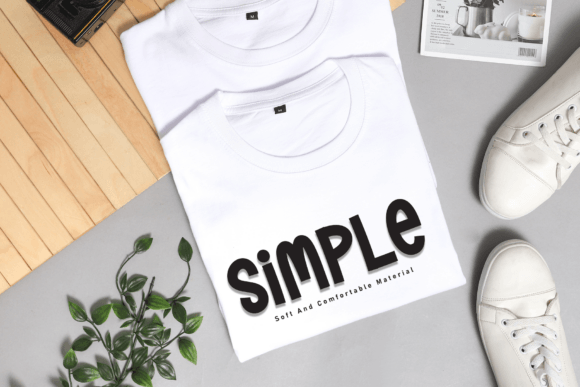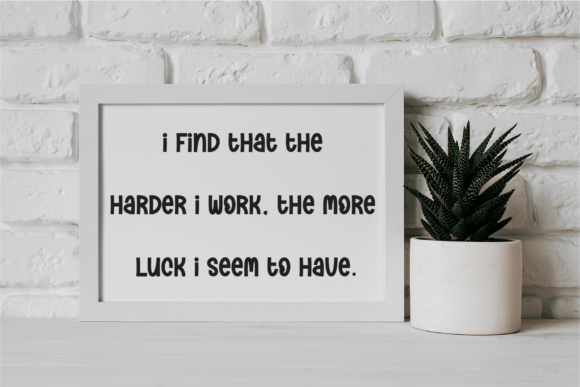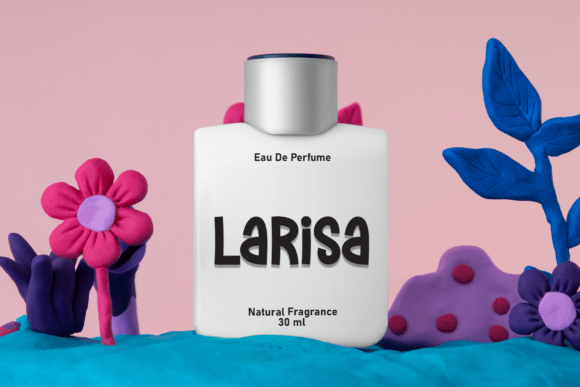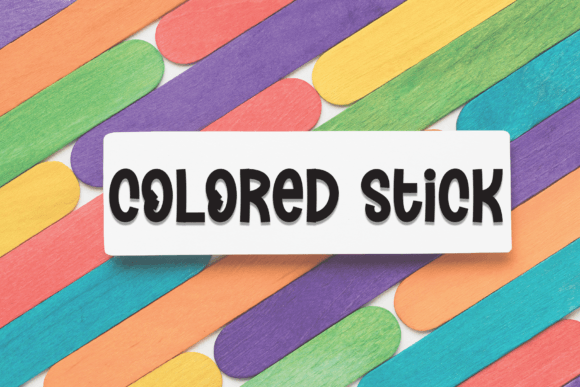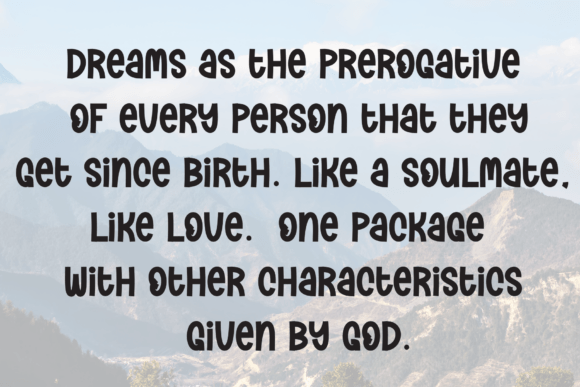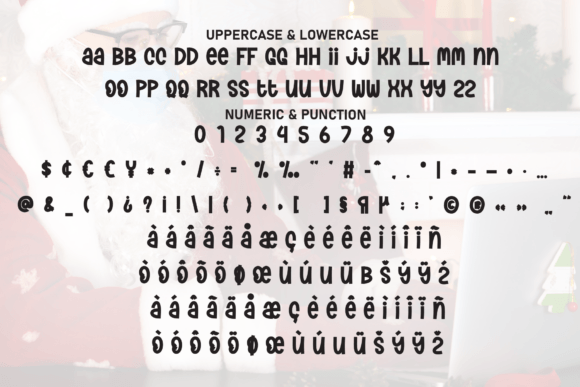
Introduction to Santa Designer Font
As a designer, you know the magic of finding the perfect font to elevate a creative project. It’s that moment when you stumble upon a font that captures the essence of your vision, and everything falls into place. For many of us, that moment comes during the holiday season, when we’re searching for a font that embodies the warmth and cheer of the time of year. And that’s exactly where the Santa Designer Font comes in – a delightful, handwritten display font that’s sure to add a personal touch to your holiday designs.
With its charming letters and festive style, the Santa Designer Font is a design resource that’s hard to resist. Whether you’re creating holiday cards, decorations, or any other seasonal project, this font is sure to bring a high quality, playful feel to your work. And the best part? It’s available for a free download, making it a valuable addition to any designer’s toolkit.
So why is the Santa Designer Font so valuable for designers? For one, its transparent background makes it easy to layer and manipulate in your designs. But beyond that, it’s the font’s ability to evoke a sense of warmth and personality that sets it apart. With the Santa Designer Font, you can add a touch of holiday cheer to any project, making it a must-have for designers looking to create high-quality, festive designs.
Key Features of Santa Designer Font
• High-quality design resource ideal for creative projects, including holiday-themed graphics and designs.
• Features a transparent background, making it easy to layer over different images and backgrounds in creative projects.
• High-resolution design (up to 2048×2048 pixels) for crisp and clear display on various devices and screens.
• Unique, festive design elements, including ornaments, holly, and other holiday-themed graphics, making it a valuable addition to any design resource library.
Honest Review: Santa Designer Font
As a designer, I’m always on the lookout for high-quality design resources that can elevate my creative projects. Recently, I stumbled upon the Santa Designer Font, and I’m excited to share my honest review with you.
What works well: ✨ The font has a unique, playful feel that’s perfect for holiday-themed designs. The transparent background option makes it easy to overlay text on top of images or other design elements. The font is also available for free download, making it an excellent choice for designers on a budget.
• Unique, playful design that’s perfect for holiday-themed projects
• Transparent background option for easy text overlay
Tips for Getting the Most Out of Santa Designer Font
For optimal results, use the Santa Designer Font in conjunction with a high-quality image or background. Experiment with different font sizes and colors to create a visually appealing design.
The Santa Designer Font is suitable for various creative projects, including holiday-themed designs, festive invitations, and Christmas cards. Its unique design and transparent background make it an ideal choice for designers and non-designers alike.
What makes the Santa Designer Font a high-quality design resource?
The Santa Designer Font is a high-quality design resource due to its clear, legible design and transparent background. This makes it perfect for use in creative projects where a clean and simple font is required. The font is also highly customizable, allowing you to adjust its size, color, and style to suit your design needs.